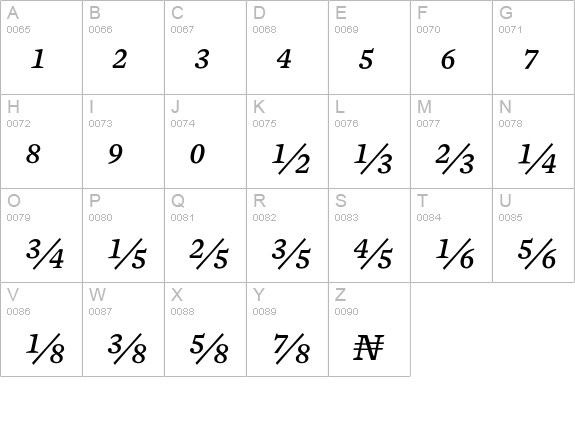
Mercury Numeric G3 Italic is a distinctive, italic variant in the Mercury typeface family \xE2\x80\x94 well suited to design and typography projects.
Mercury Numeric G3 Italic font is a sleek and modern typeface that exudes sophistication and elegance. With its crisp lines and stylish curves, this font is perfect for adding a touch of professionalism to any project. The italic style adds a touch of flair and dynamism, making it ideal for use in headings, quotes, and other design elements. What makes Mercury Numeric G3 Italic font even more appealing is that it is available for free download at FontsMarket.com. This means you can easily access this high-quality font without any cost, making it a valuable addition to your font library. Whether you are working on a personal project or a professional design, Mercury Numeric G3 Italic font is sure to elevate your work to the next level. Download it today and see the difference it can make in your designs!